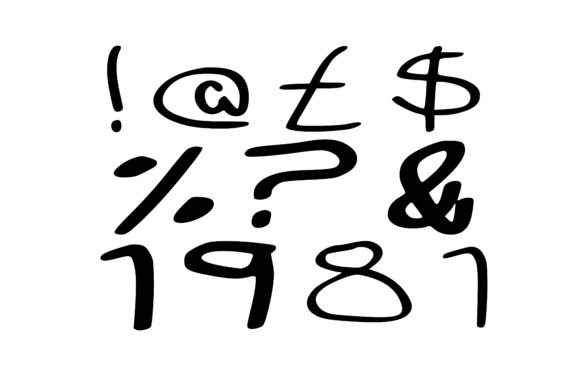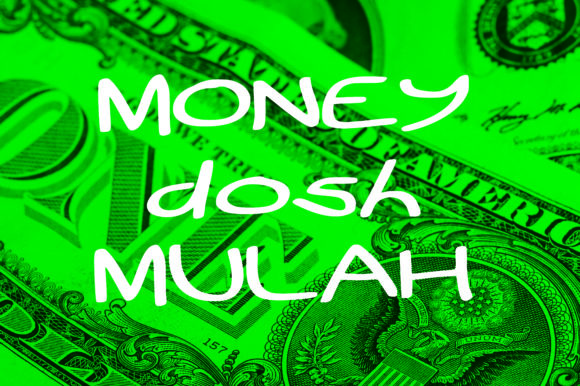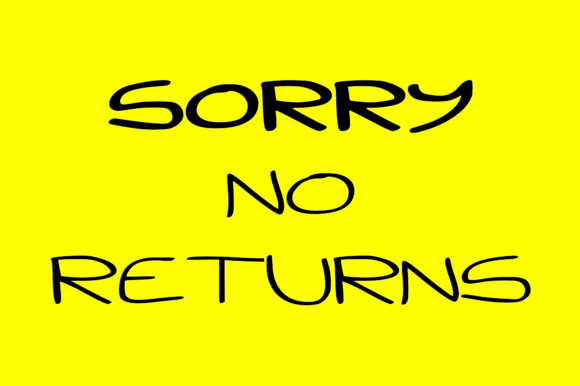
HomeScript FontsWide Boy Font Script Fonts Wide Boy Font FacebookXPinterestWhatsApp Wide Boy Font Poster 2 Wide Boy Font Poster 3 Wide Boy Font Poster 4 About Wide Boy Font Wide boy is a wide and unique handwritten font that will turn any design project into a stand out. DOWNLOAD ON CREATIVE FABRICAThis font is sold and delivered by Creative Fabrica. Font Canyon may earn a commission if you buy through this link. People also explored Cinnamon Roll JF Kringelikrok Font Cattaya Rusty Font Historia Font Sthefany Font Heather Green Bella Canvas 3005 Mockup Happy Carol Font Bread Food Font Blacklisted Font 357 0 TagsWide Boy Font Previous articleWizard FontNext articleNow Spiders Font LEAVE A REPLY Cancel reply Comment: Please enter your comment! Name:* Please enter your name here Email:* You have entered an incorrect email address! Please enter your email address here Website: Save my name, email, and website in this browser for the next time I comment. Personal Use Free Nuku Nuku Personal Use Free Read more about this font Cinderella Personal Use Free Read more about this font Cheque Personal Use Free Read more about this font Made of Concrete Personal Use Free Read more about this font BLOG Elegant Wedding Invitation Fonts – Handwritten & Script Fonts Elegant Wedding Invitation Fonts Your wedding day is one of the most important moments of your life, and every detail matters—including your invitation design. Our... The 10 Best Handwriting Fonts to Add Personality to Your Designs Best Fonts for T-Shirt Design – Top 2025 Picks How to Install and Use Fonts on Windows, macOS, and Web Projects